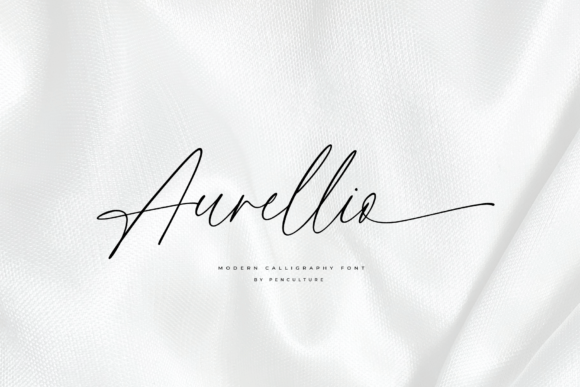
Aurellio Font: Elevate Your Design with Modern Calligraphy
In the world of typography, fonts play a crucial role in conveying messages, expressing emotions, and creating a lasting impression. Among the numerous fonts available, Aurellio Font stands out for its unique blend of modern calligraphy and elegance. In this article, we’ll explore the features, benefits, and uses of Aurellio Font, specifically the “Aurellio – Modern Calligraphy Font”, a clean and smooth font crafted with original handwriting.
What is Aurellio Font?
Aurellio Font is a modern calligraphy font designed to add a touch of sophistication and elegance to various design projects. The font is created with original handwriting, giving it a personal and distinctive feel. Its clean and smooth lines make it perfect for a wide range of applications, from branding and logos to wedding invitations and signatures.
Key Features of Aurellio Font
- Original Handwriting: Aurellio Font is crafted with original handwriting, making it unique and authentic.
- Clean and Smooth Lines: The font features clean and smooth lines, ensuring clarity and readability.
- Modern Calligraphy: Aurellio Font embodies modern calligraphy, making it perfect for designs that require a touch of elegance.
- Versatile: The font can be used for various design projects, including branding, logos, watermarks, signatures, wedding invitations, and more.
Uses of Aurellio Font
Aurellio Font is an incredibly versatile font that can be applied to various design needs. Here are some of the ways you can use this font:
- Branding: Create a lasting impression with Aurellio Font by using it for your brand’s logo, tagline, or marketing materials.
- Logos: Design a unique and memorable logo for your business or personal brand using Aurellio Font.
- Watermarks: Add a touch of elegance to your photos or artwork with Aurellio Font as a watermark.
- Signatures: Create a personalized signature with Aurellio Font, perfect for business cards, emails, or documents.
- Wedding Invitations: Make your wedding invitations stand out with the elegant and modern calligraphy of Aurellio Font.
Benefits of Using Aurellio Font
Using Aurellio Font can bring numerous benefits to your design projects. Here are some of the advantages of using this font:
- Elegance and Sophistication: Aurellio Font adds a touch of elegance and sophistication to your designs, making them stand out.
- Readability: The clean and smooth lines of Aurellio Font ensure excellent readability, even at small font sizes.
- Versatility: The font’s versatility allows you to use it for various design projects, from branding to wedding invitations.
- Unique and Authentic: Aurellio Font’s original handwriting makes it unique and authentic, setting it apart from other fonts.
Tips for Using Aurellio Font
To get the most out of Aurellio Font, here are some tips to keep in mind:
- Pair it with Other Fonts: Experiment with pairing Aurellio Font with other fonts to create a unique and visually appealing design.
- Adjust Font Size: Adjust the font size to ensure optimal readability and aesthetics.
- Use it for Headings: Use Aurellio Font for headings or titles to add a touch of elegance and sophistication.
- Experiment with Colors: Try out different colors to find the perfect match for your design and Aurellio Font.
In conclusion, Aurellio Font, specifically the “Aurellio – Modern Calligraphy Font”, is an exceptional font that can elevate your design projects with its modern calligraphy and elegance. Its clean and smooth lines, original handwriting, and versatility make it perfect for various applications. By using Aurellio Font, you can add a touch of sophistication and elegance to your designs, making them stand out and leave a lasting impression.